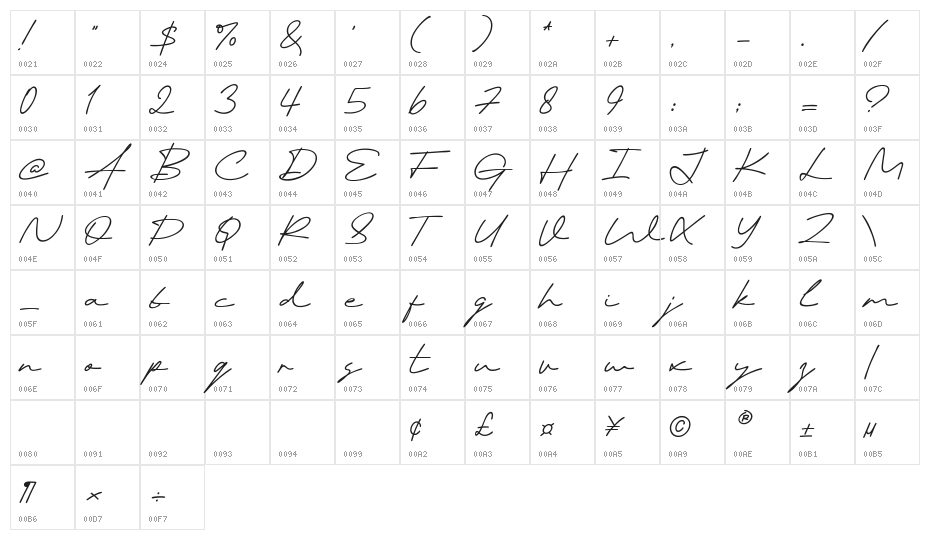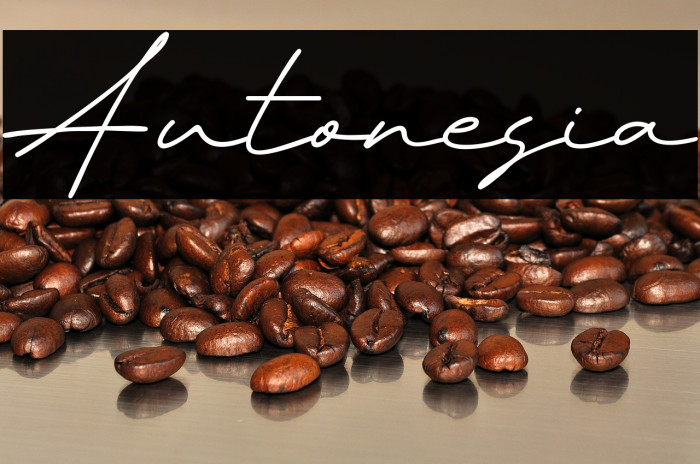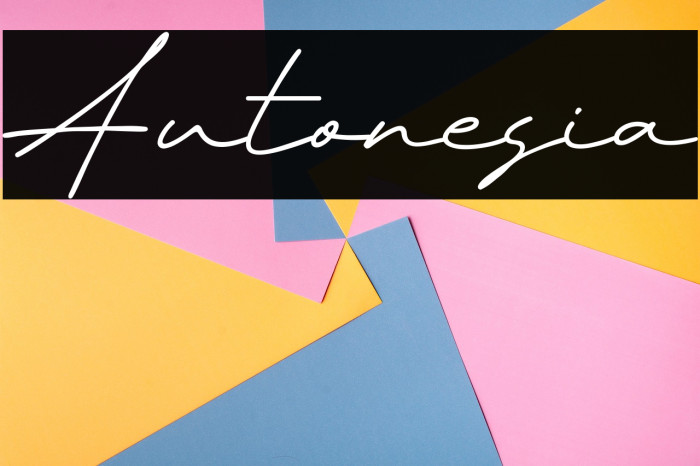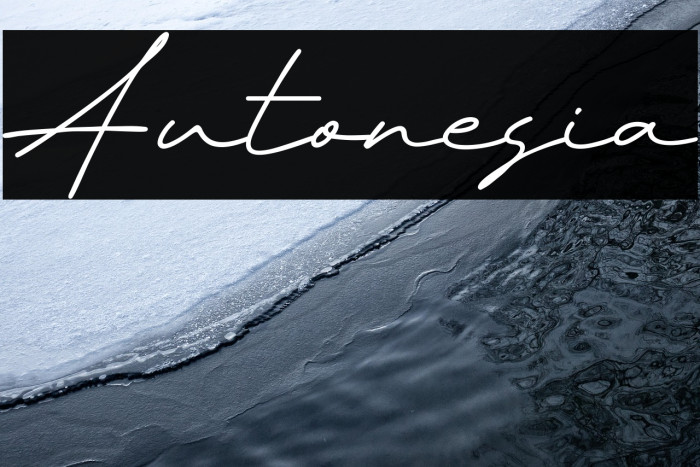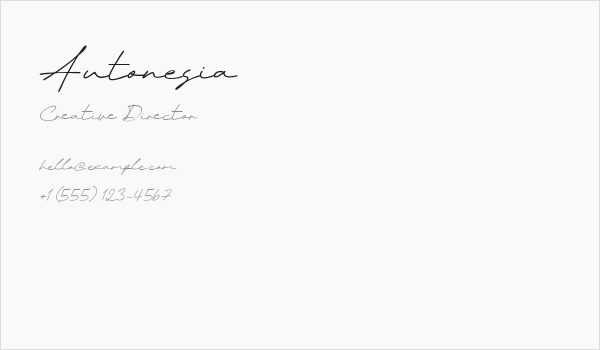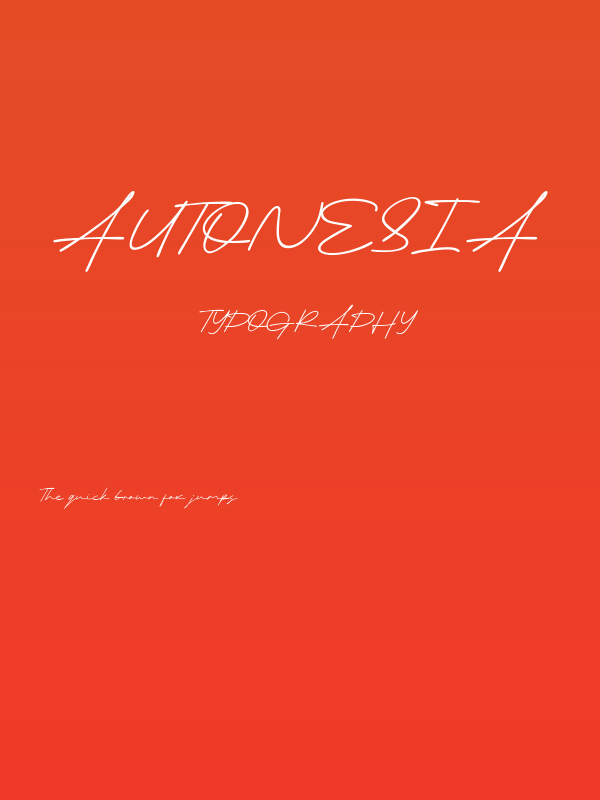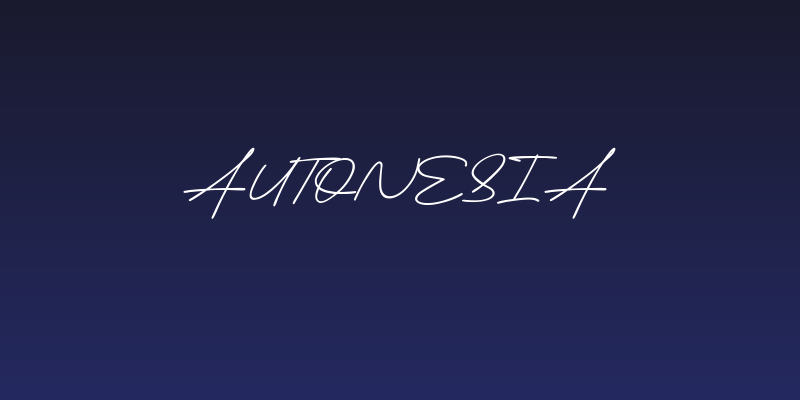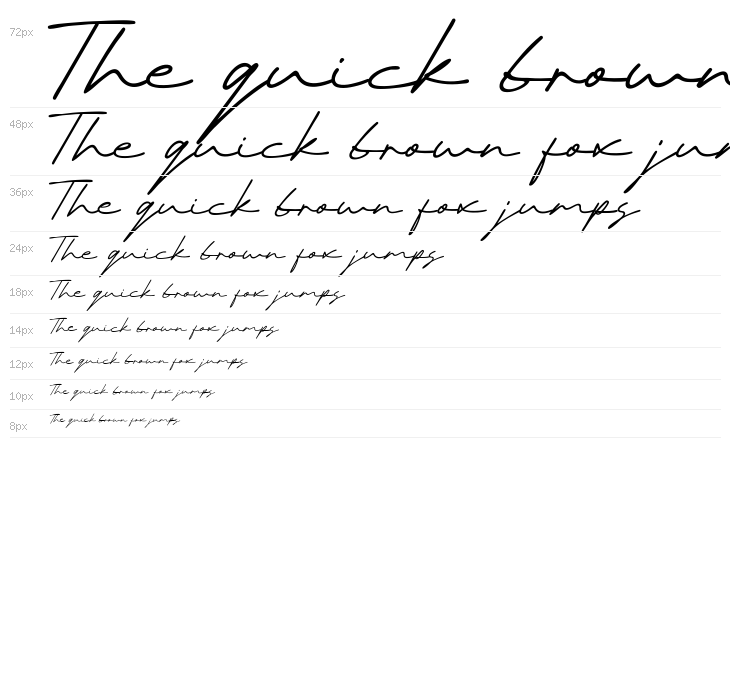
Autonesia Font
Autonesia Description
This font exudes a casual and elegant handwritten style, characterized by its fluid and connected letterforms. Each character flows seamlessly into the next, creating a natural and personal touch. The uppercase letters maintain a consistent height, while the lowercase letters exhibit a slight slant, enhancing the script-like appearance. The numerals and special characters are crafted with the same attention to detail, ensuring a cohesive look throughout. The overall design is clean and legible, making it suitable for various applications where a personal or informal tone is desired.
| Use Case | Logos, Invitations, Personal notes |
| Proposed Projects | Ideal for wedding invitations, personal branding, greeting cards, and social media graphics. |